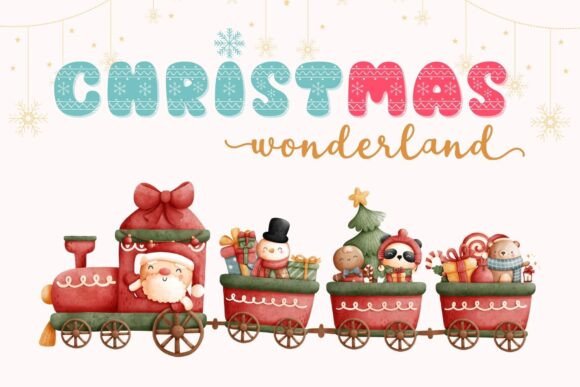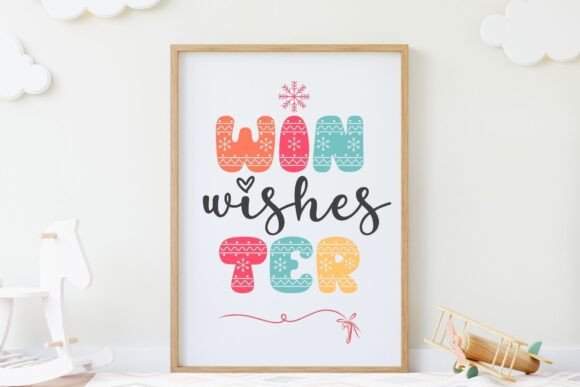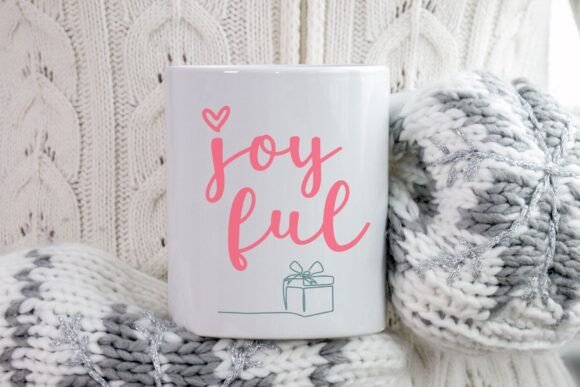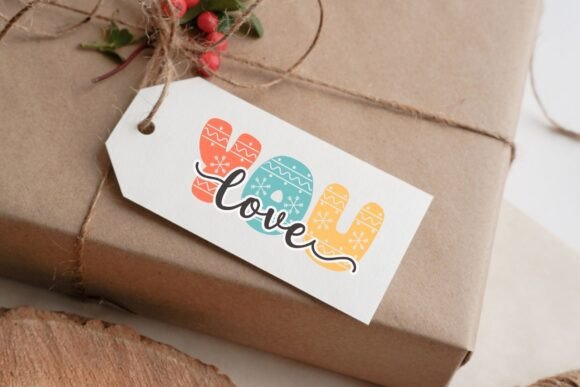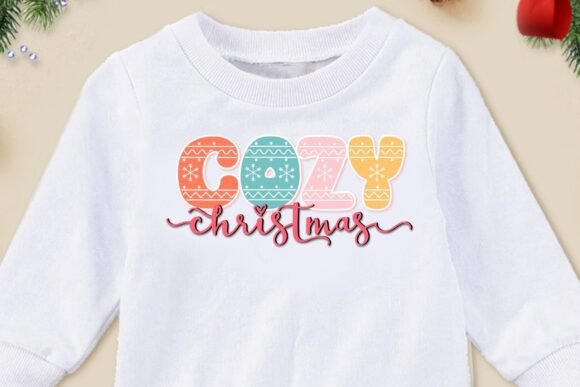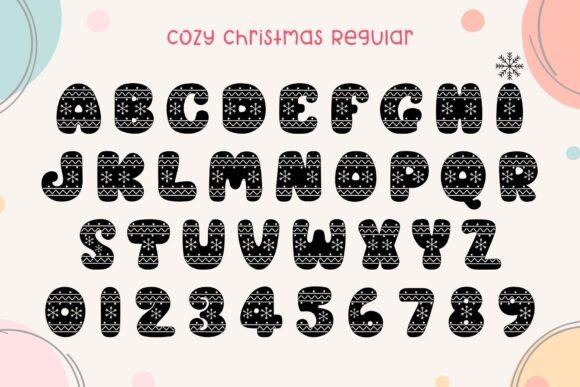
Cozy Christmas Duo Font: Spread Holiday Cheer with this Charming Font Set
As the holiday season approaches, designers and crafters are on the lookout for festive and fun fonts to add a touch of Christmas magic to their projects. Look no further than the “Cozy Christmas Font Duo”, a delightful font set that combines a playful display style with a whimsical script, perfect for creating joyful and eye-catching designs.
What Makes Cozy Christmas Font Duo Special?
The “Cozy Christmas Font Duo” is a carefully crafted font set that features two unique fonts, each with its own special charm. The bold, decorative letters are adorned with Christmas-themed patterns such as snowflakes and zigzags, adding a playful and festive touch to any design. The font duo is designed to work together seamlessly, allowing you to mix and match the two fonts to create stunning holiday designs.
The “Cozy Christmas Font Duo” is ideal for a wide range of holiday projects, including:
- Greeting cards: Create personalized and festive holiday cards that will delight your friends and family.
- Holiday invitations: Set the tone for your holiday party or event with custom invitations that feature the “Cozy Christmas Font Duo”.
- Gift tags: Add a personal touch to your gifts with custom gift tags that feature the playful and whimsical fonts.
- Seasonal branding: Use the “Cozy Christmas Font Duo” to create festive and eye-catching branding for your business or product.
Key Features of Cozy Christmas Font Duo
The “Cozy Christmas Font Duo” offers a range of features that make it perfect for designers and crafters, including:
- Two unique fonts: The font duo includes a bold, decorative display font and a whimsical script font.
- Christmas-themed patterns: The fonts feature Christmas-themed patterns such as snowflakes and zigzags, adding a festive touch to your designs.
- Playful and elegant: The fonts are designed to be both playful and elegant, making them perfect for a wide range of holiday projects.
Tips for Using Cozy Christmas Font Duo
Here are a few tips for getting the most out of the “Cozy Christmas Font Duo”:
- Mix and match: Experiment with mixing and matching the two fonts to create unique and eye-catching designs.
- Add embellishments: Use the fonts in combination with embellishments such as glitter, snowflakes, and holly to add an extra touch of festive fun.
- Experiment with colors: Try out different color schemes to find the perfect combination for your holiday design.